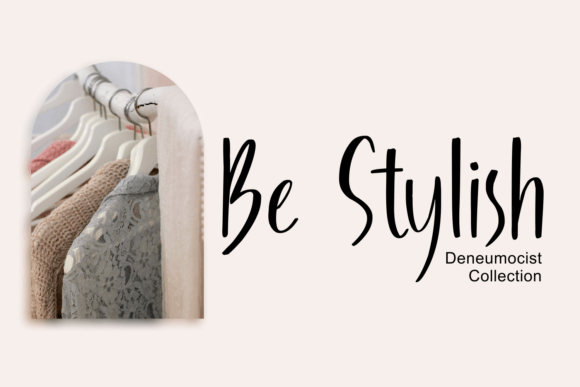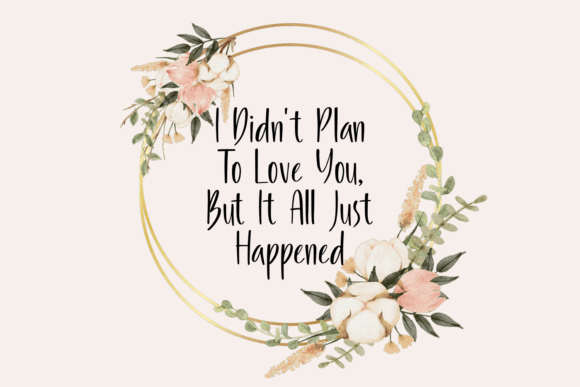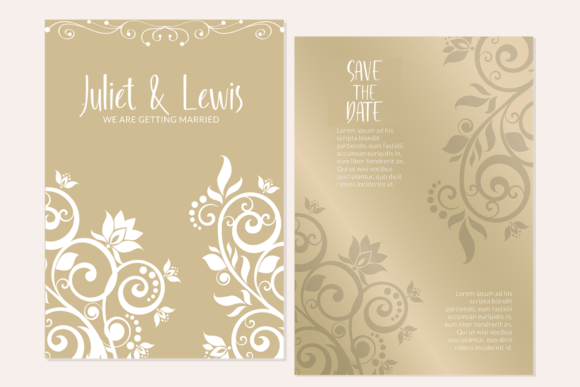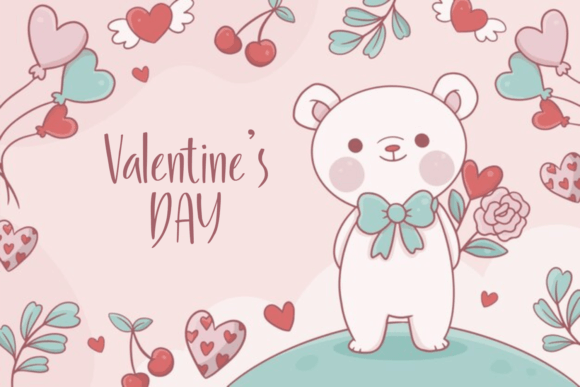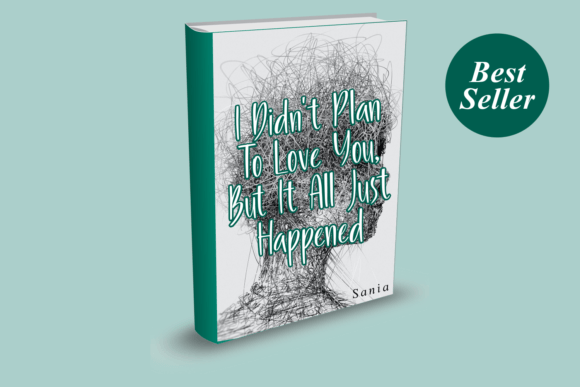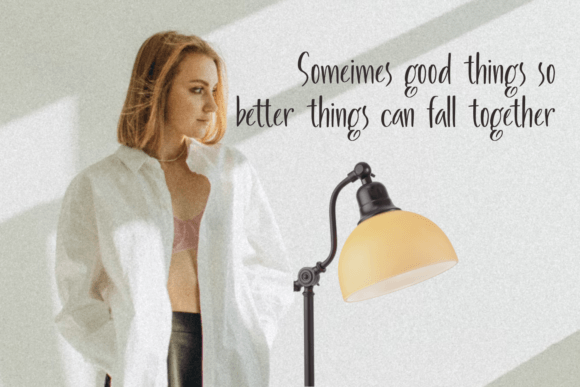
Introduction to Quinbery Font
Have you ever been working on a creative project, pouring your heart and soul into it, only to feel like something is missing? That’s when you stumble upon the perfect design resource – a font that makes all the difference. For designers looking to add a stylish and modern touch to their work, the Quinbery Font is an absolute game-changer.
With its perfect blend of casual handwriting and sleek sophistication, the Quinbery Font is ideal for applying headlines, invitations, greeting cards, book covers, fashion, hand tags, and product labels. Whether you’re working on a high-end fashion brand or a quirky greeting card, this versatile font is sure to elevate your design to the next level.
Key Features of Quinbery Font
- Designed with a modern aesthetic, suitable for various design applications, including logos, typography, and branding.
Honest Review: Quinbery Font
I recently had the opportunity to work with the Quinbery Font, and I must say it’s been a game-changer for my creative projects. This design resource is a high-quality font that offers a unique and modern aesthetic.
- ✨ High-quality design: The Quinbery Font is crisp and clear, making it perfect for a variety of creative projects.
While the Quinbery Font has its strengths, there are a few limitations to consider:
- ⚠️ Limited character set: The font only includes a limited set of characters, which may not be suitable for projects that require a wide range of special characters.
- ⚠️ Not suitable for small text: Due to its modern aesthetic, the Quinbery Font may not be the best choice for small text or body copy.
Overall, I’m impressed with the Quinbery Font. Its unique design and high-quality construction make it a valuable addition to any designer’s toolkit. While it may have some limitations, it’s a great resource for designers working on creative projects.
Common Use Cases for Quinbery Font
The Quinbery Font is ideal for use in creative projects such as logo design, branding, and typography-based designs. Its high-quality design and transparent background make it a versatile design resource for various applications.